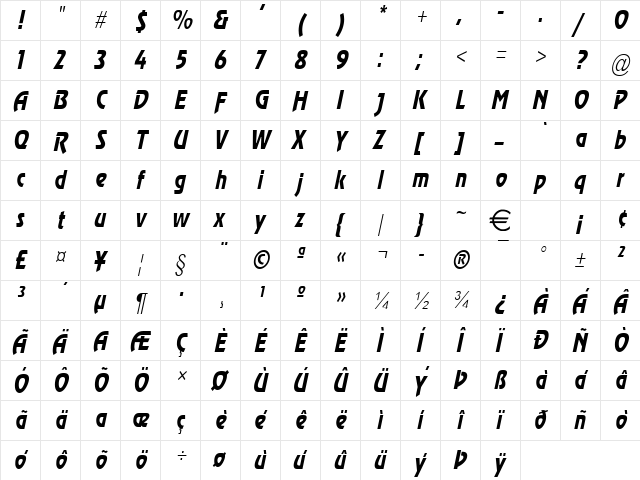
ReviewCondensedNarrow Italic Font Preview
Design Context for ReviewCondensedNarrow Typeface
ReviewCondensedNarrow is a composed and adaptable typeface that performs quietly and consistently across a wide range of design contexts. The dynamic lean of this cut emphasises speed and emphasis in any layout. Its narrow stance lets it pack a punch even in space-constrained designs.